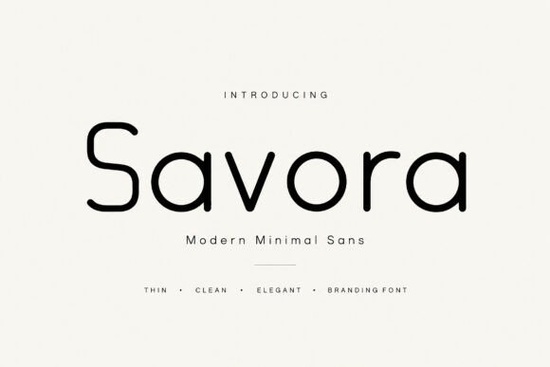
Savora Font is a versatile and stylish choice for designers looking to add a touch of modern elegance to their projects. This clean, minimalist sans serif typeface is perfect for a wide range of design needs, from logos to branding materials and everything in between. Whether you're working on a website header, social media graphic, or business card, Savora offers a refined look that feels both sophisticated and approachable.
Designed with smooth curves and geometric balance, Savora stands out for its ability to blend simplicity with refinement. Its elegant spacing and sleek rounded forms make it ideal for creating visual identities that feel timeless and professional. The font’s minimal style ensures it works well across different mediums, including digital and print projects. For those who want a font that can adapt to various creative needs, Savora is a strong contender.
What Makes Savora Stand Out?
Savora is more than just a font it's a tool that helps designers achieve a polished look without unnecessary complexity. The font includes uppercase and lowercase letters, numbers, and punctuation, making it suitable for a variety of typographic tasks. Its clean kerning and smooth geometric shapes ensure that text looks sharp and readable, whether used in large headlines or smaller body copy.
One of the key strengths of Savora is its versatility. It can be used in multiple design contexts, such as editorial layouts, packaging, and luxury product presentations. Its minimalist aesthetic makes it a great fit for fashion and luxury branding, where clarity and sophistication are essential. If you're looking for a font that can handle both bold statements and subtle details, Savora is an excellent option.
Best Uses for Savora Font
Designers often turn to Savora for logo creation, where its clean lines and balanced structure help convey a sense of professionalism. It also works well for branding identities, offering a consistent visual language across different materials. For editorial design, Savora provides a modern and easy-to-read option that complements a variety of layouts.
When it comes to web design, Savora is a reliable choice for headers and other prominent text elements. Its readability ensures that visitors can easily engage with your content. For print projects like business cards or minimal posters, Savora adds a touch of class without overwhelming the design. It’s also a popular choice for social media graphics, where a clean and modern look can make a big difference.
How to Use Savora Effectively
To get the most out of Savora, consider pairing it with complementary fonts that enhance its minimalist style. For example, using a slightly more decorative font for body text can create a nice contrast while keeping the overall design cohesive. Experimenting with different weights and sizes can also help highlight key elements in your design.
When working with Savora, keep in mind that less is often more. Its clean appearance works best when not overcomplicated by additional design elements. Focus on spacing and alignment to maintain a balanced look. For small businesses or print-on-demand sellers, Savora can help create a professional image that resonates with your target audience.
Whether you're a designer, crafter, or small business owner, Savora Font offers a simple yet effective way to elevate your visual projects. Its modern aesthetic and ease of use make it a valuable addition to any design toolkit. Try it out and see how it can enhance your creative work.
- Check if Savora works well with your existing design elements.
- Experiment with different weights and sizes to find the right balance.
- Pair it with other fonts to create a visually appealing contrast.
- Use it for both digital and print projects to test its versatility.